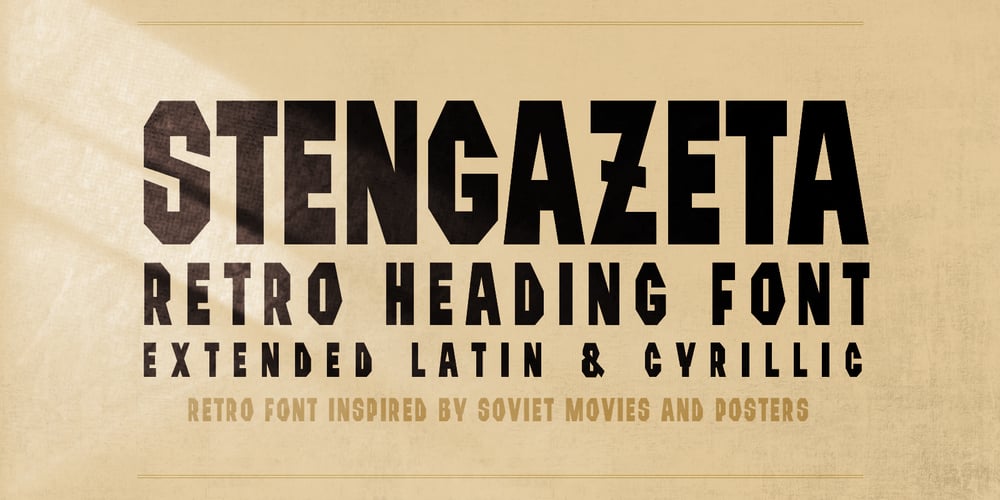
ST Stengazeta Font Family was designed by Alexander Shimanov and published by ShimanovTypes. ST Stengazeta contains 1 styles and family package options. Introducing a retro grotesque called “Stengazeta”. The name means “wall newspaper” – this is very popular in USSR genre of handmade artwork that is actually a mix of newspaper and poster. During the Soviet era you could find it everywhere – in factories, schools, research labs, and even in army and police. Sometimes it was a kind of official propaganda, but often just a way of expressing of creativity of co-workers. The letterforms are bold and grotesque with strong handmade feeling. It has Extended Eastern Europe Cyrillic and some of Extended Eastern Europe Latin letters. “Stengazeta” created for titles, poster design, web design, branding and packaging works, illustrations, badges and other typography works.ST-Stengazeta supports languages: Belarusian, Bosnian, Bulgarian, Croatian, Czech, Danish, English, Russian, Serbian, Slovenian, Spanish, Ukrainian, and probably others )WHAT YOU GETUppercase, numbers, punctuation, international characters.